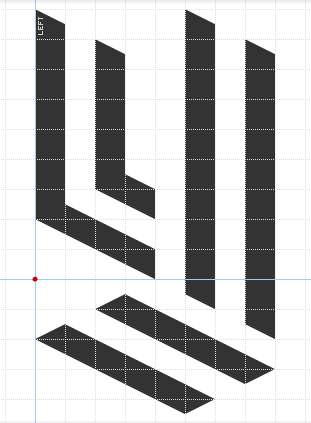
Inline, blackletter and stencil all in one! I think someone else did something like this recently, though it was cursive rather than blackletter. I love what you've done so far. The descenders on y and g work well on g but not y. If you reversed it on y it would probably work, but you're probably not going to do that because it goes against the grain. You could try something like this on for size; perhaps assimilating the bottom right corner more with the likes of a or q:
I considered a y similar to the one you posted, but I didn't like the way the pieces interlocked. The one I designed was based a bit on the New York Times logo, which has a swashy tail.
I also just noticed the 't' was not drawn correctly, so I added a gap near the top :-)
@CMunk - I debated putting in a double-storey 'a' - yours is better than mine, and I might use it :-)
I also tried out that 's' but I really liked the way the lines wove together in the one I used. Looking at it now, yours might work better density-wise.
You've made great progress here. Regarding s, you could try and make S more like how you had s before; in capitals legibility and weight is often less of an issue. I think you should troubleshoot with Y a little--I have no idea how it could be done this time but alternatives should certainly be explored.
Just added a ton of numbers and punctuation. Fixed the 'S', 'G', and 'f'. The '2' and the 'z' are identical - I don't think this matters because both look OK in context.
I think the 'Y' gives a bit of that blackletter flair to the font. I was toying with just using a raised 'y', but this looks better to me.
Nice an very consistent design. It would certainly qualify as inline face with a hint of blackletter style. However, one could argue that Apricot belongs to the group of so called "ribbon fonts" using a white-striped folded ribbon. 10/10
Good catch on the ribbon thing - I was partially inspired by woven/folded straw (and also partially by MC Escher's woodcuts).
After starting on the accents, I'm thinking I might change the punctuation to match the weight of the accents rather than the weight of the letters. Thoughts, anyone?
Here are some suggestions for alternate a and s :)